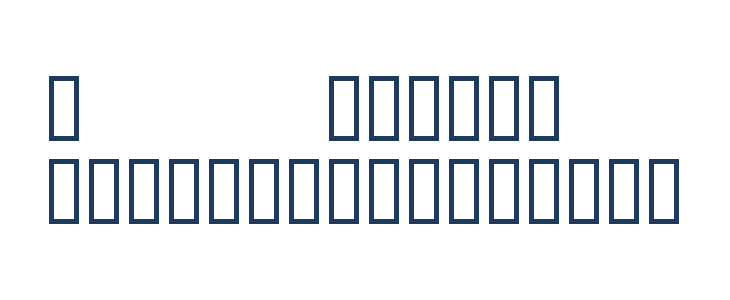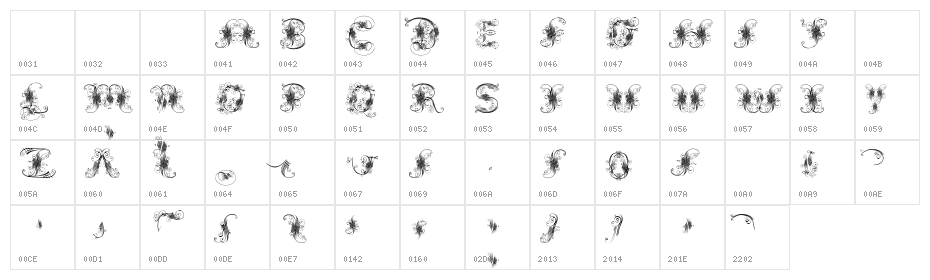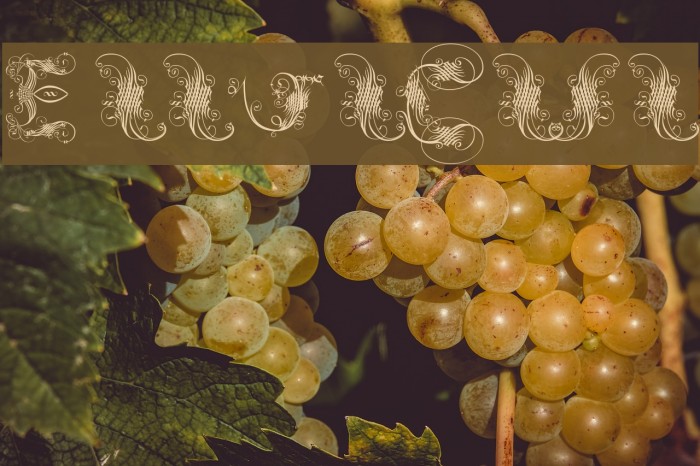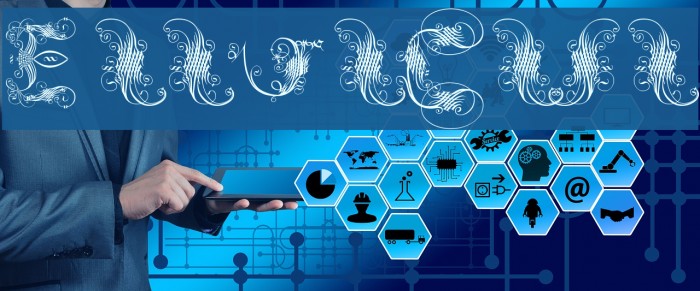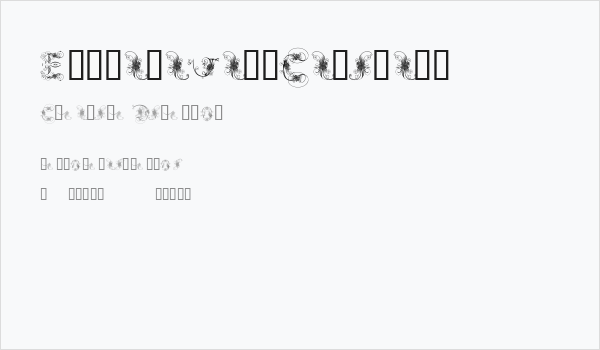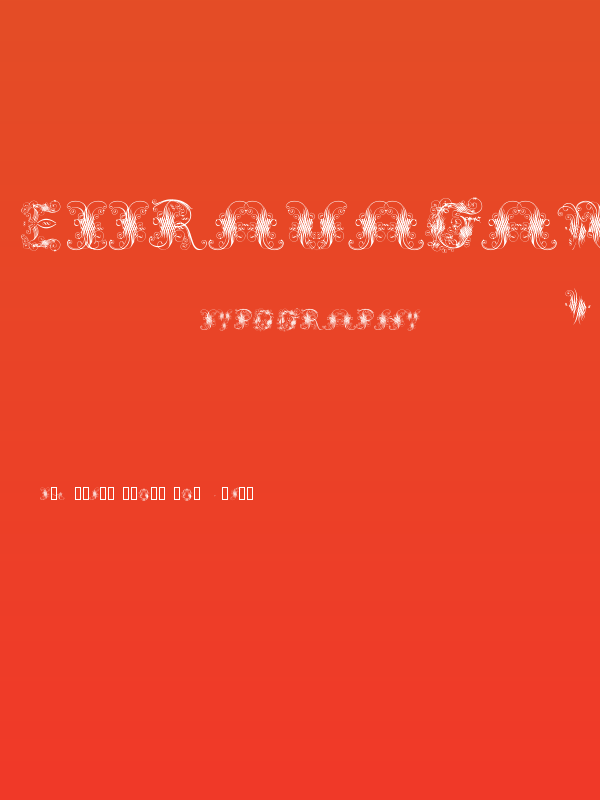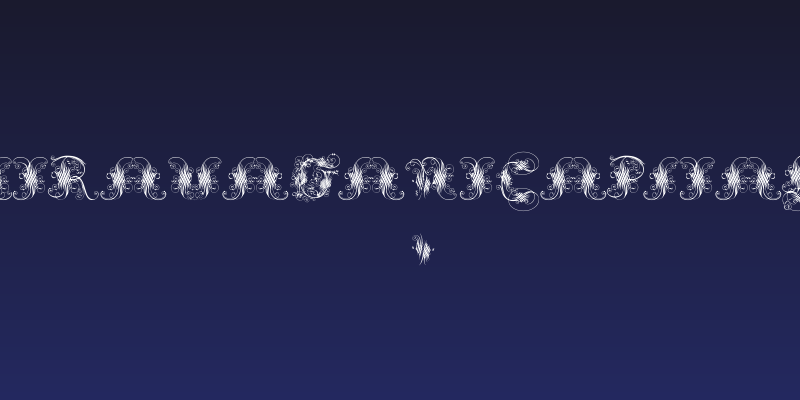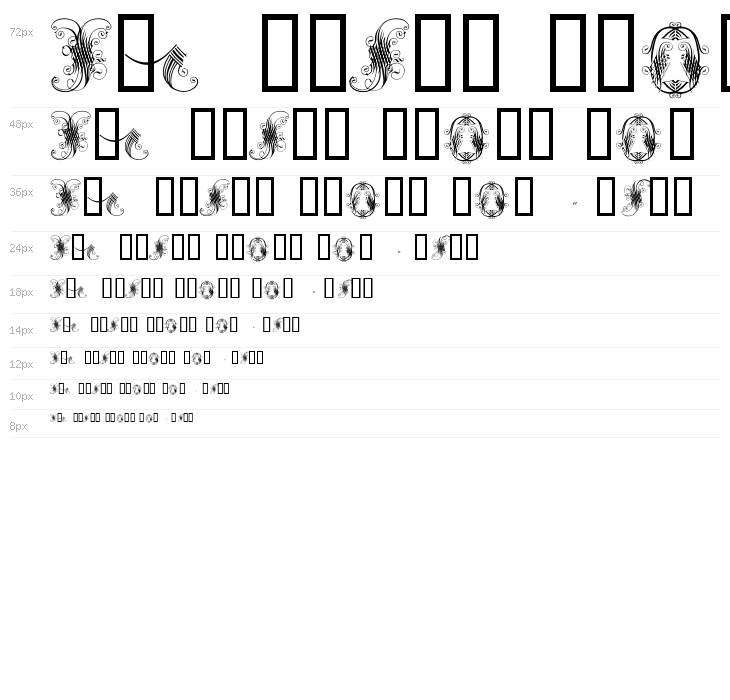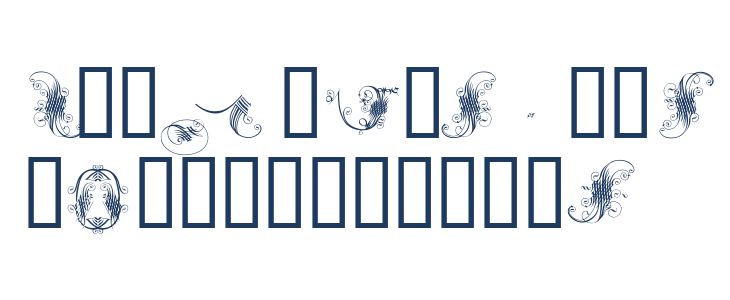
ExtravagantCapitals Font
ExtravagantCapitals Description
This font is an elaborate and decorative typeface characterized by its intricate swirls and flourishes that extend from each letter. The uppercase letters are highly stylized, with ornate embellishments that give a sense of grandeur and elegance. The lowercase letters, however, are not present, suggesting that this font is primarily designed for decorative purposes rather than practical text applications. The numbers and special characters are missing, indicating a focus on artistic expression over functionality. The overall appearance is reminiscent of vintage calligraphy, making it suitable for projects that require a touch of sophistication and luxury.
| Use Case | Logos, Headlines |
| Proposed Projects | Ideal for wedding invitations, luxury branding, high-end product packaging, and decorative headlines. |